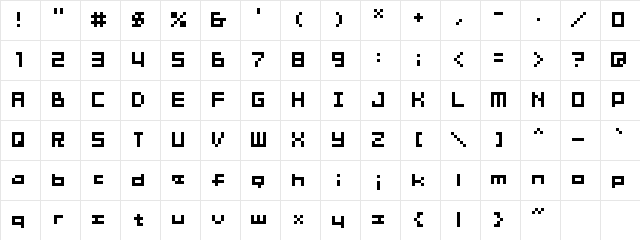
04b_03b Regular Free Font
04b_03b Regular
Design Context for 04b_03b
04b_03b is a composed and adaptable typeface that performs quietly and consistently across a wide range of design contexts.
Pro Tip: Use 04b_03b in both headline and body roles to test its range before committing to a single application.